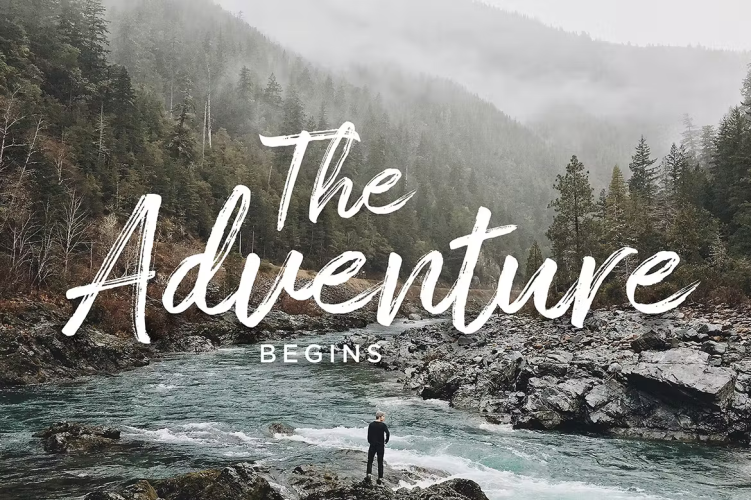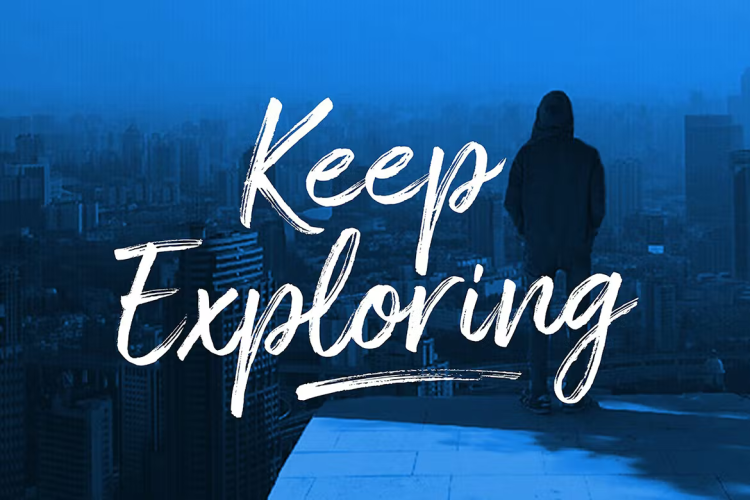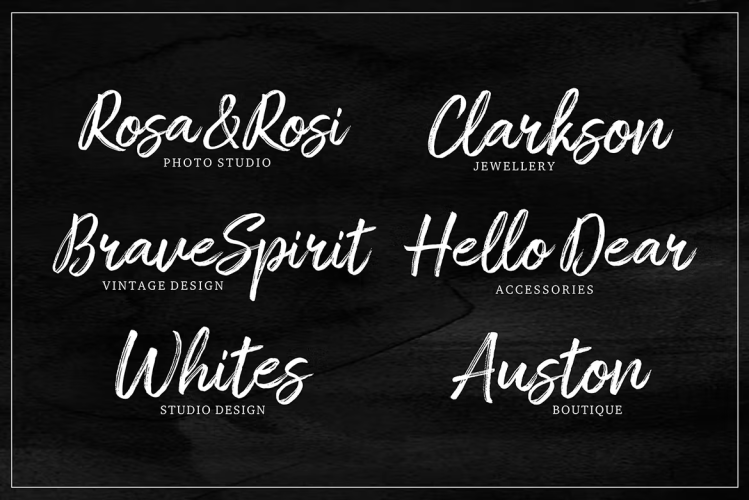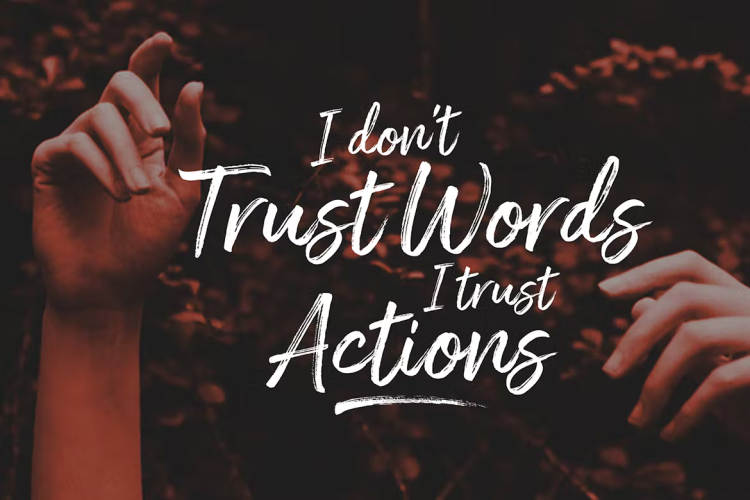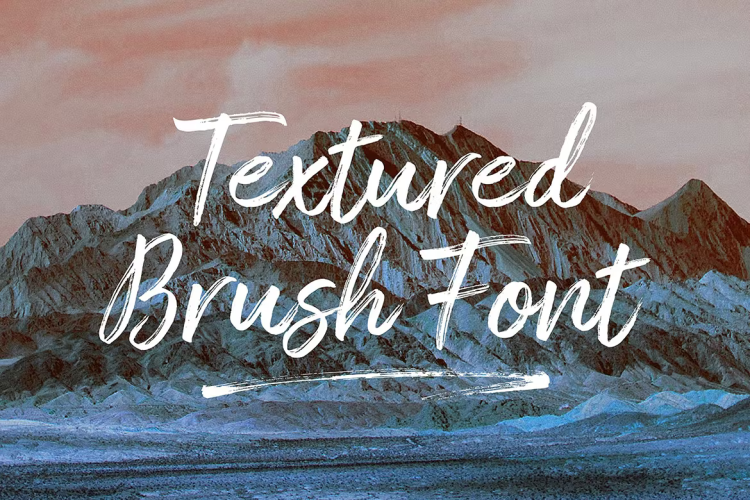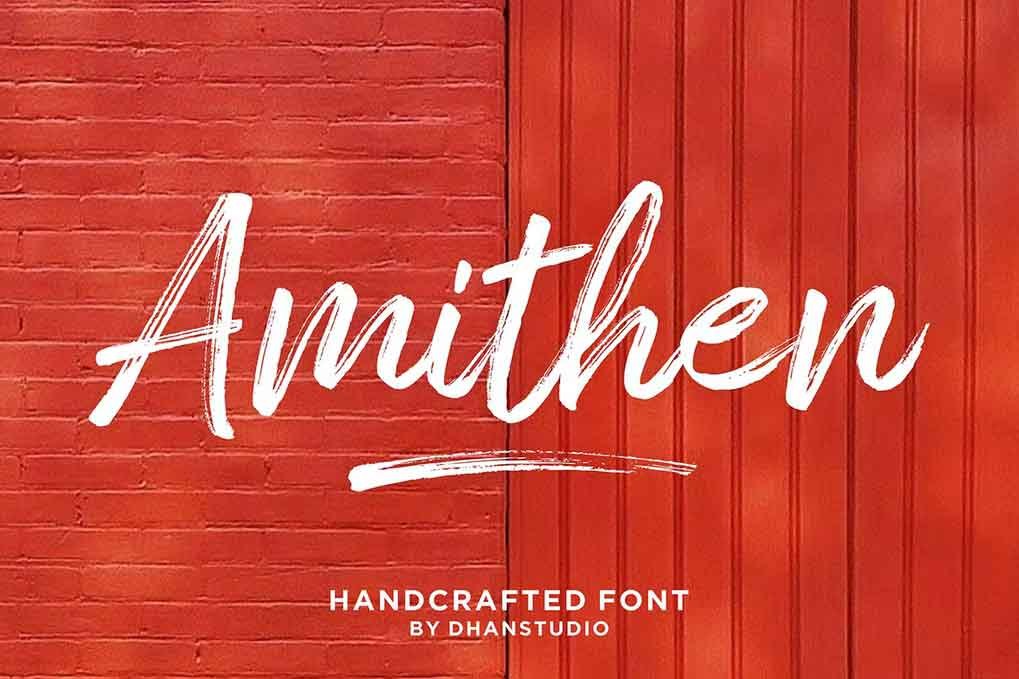
Amithen Brush Font
Amithen is textured brush font, contemporary approach to design, handmade natural with an irregular baseline. Suitable for use in title design. Such as apparel, invitati…
Amithen is textured brush font, contemporary approach to design, handmade natural with an irregular baseline. Suitable for use in title design. Such as apparel, invitations, books tittle, stationery design, quotes, branding, logos, greeting card, t-shirt, packaging design, poster and more. Amithen includes a complete set of uppercase and lowercase letters, as well as multi-language support, numbers, punctuation, ligatures.
Where Amithen Brush Font works best
A short phrase in Amithen Brush Font carries warmth that a typeset sans cannot fake; keep the rest of the card plain.
Chalkboard-style headings in Amithen Brush Font make a menu feel hand-made. Keep the dish descriptions in a simple face so prices stay readable.
One line of Amithen Brush Font over a photo is enough; the script carries the tone and the caption does the work.
What kind of work does Amithen Brush Font suit?
It sits in the Script And Handwritten group and reads as branding, brush, contemporary, handwritten. That makes it a candidate wherever those qualities help: headings, packaging, social graphics and brand work. Set it at the size you plan to use before deciding.